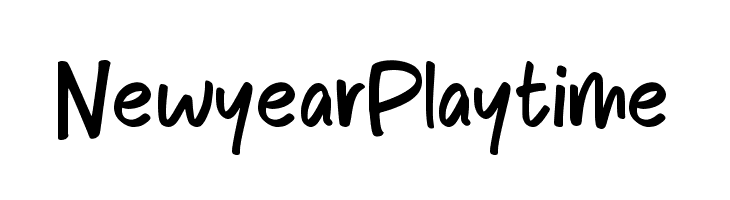
A playful, bold font with thick, rounded strokes and a comic book style.
Eclectic pictogram font with detailed black-and-white illustrations.
A modern sans-serif font with smooth curves and balanced proportions.
A bold, decorative font with a shadowed, three-dimensional effect.
A playful, hand-drawn font with bold, whimsical characters.
A playful, bold font with exaggerated curves and a hand-drawn feel.
A distressed, grungy font with bold, textured characters.
A playful, handwritten-style font with a whimsical and casual vibe.
A distressed, grungy font with a textured, worn appearance.